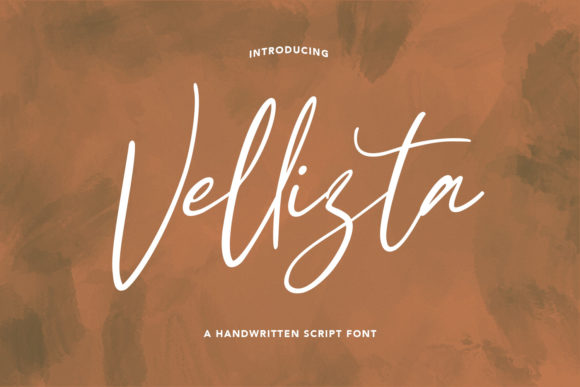
Introducing Vellizta Font: A Symphony of Elegance and Style for Your Digital Creations
In the realm of digital artistry, where words dance across the screen, the choice of font holds immense power. It can transform a simple text into a captivating narrative, elevate emotions, and leave an everlasting impression. Vellizta Font, a breathtaking script font, emerges from the creative mind of Maulana Creative, ready to grace your designs with its exquisite charm and timeless allure.
Crafted with meticulous attention to detail, Vellizta Font embodies the essence of elegance and sophistication. Its sweeping strokes and graceful curves evoke a sense of timeless beauty, reminiscent of handwritten love letters and vintage manuscripts. Each character, meticulously drawn, exudes a personality of its own, whispering tales of romance, passion, and longing.
Step into the world of Vellizta Font and immerse yourself in a symphony of visual delight. Experience the magic as your words transform into elegant compositions, captivating your audience with their inherent grace. Whether you're designing a wedding invitation, a personal journal, or a social media post, Vellizta Font will add a touch of refinement and luxury to your creations.
Beyond its aesthetic beauty, Vellizta Font is a versatile performer, capable of adapting seamlessly to a wide range of design projects. Its flowing lines lend themselves perfectly to long blocks of text, creating a seamless reading experience. Whether you're crafting a heartfelt letter, a compelling blog post, or an informative article, Vellizta Font will ensure your words flow effortlessly, drawing your readers into the depths of your narrative.
With Vellizta Font as your creative companion, you'll discover a world of possibilities. Unleash your imagination and delve into the realm of digital storytelling, knowing that your words will be adorned with the elegance and charm of a timeless masterpiece. Let Vellizta Font be your guiding light, illuminating your journey as you create digital works of art that leave an indelible mark on the hearts of your audience.